Typography plays a huge role in all types of design, from print design to web design, typography plays a central role. With the latest progressive improvements on the web like Variable fonts, FlexBox, CSS Grids, CSS Shapes and many more new technologies are definitely changing the way we think of typography on the web.
To add more personality in to our designs and attract more attention, we can choose font pairings to create visual hierarchy and contrast which makes the design more appealing to the audience. There are a few different ways to achieve visual hierarchy, this can be created through colours, size and typography contrast.
Here is a collection of our favourite free fonts in 2025, and links to download them.
Harmond a new fresh & modern serif with a strong style, a dancing baseline! So beautiful on invitation like greeting cards, branding materials, business cards, quotes, posters, and more!
Resist Sans is a free-spirited neo-grotesque that embodies both the innate desire for revolt and a tendency towards uniformity. While Resist Sans preserves the neat, minimalist look which is associated with neo-grotesques, it also accentuates the tentativeness of each letter form.
HARMONY is a new modern serif font from Artem Nevsky that will bring a touch of elegance to any project. Perfect for invitations, postcards, posters, book covers, advertisements, website headers, logos, magazines, etc.
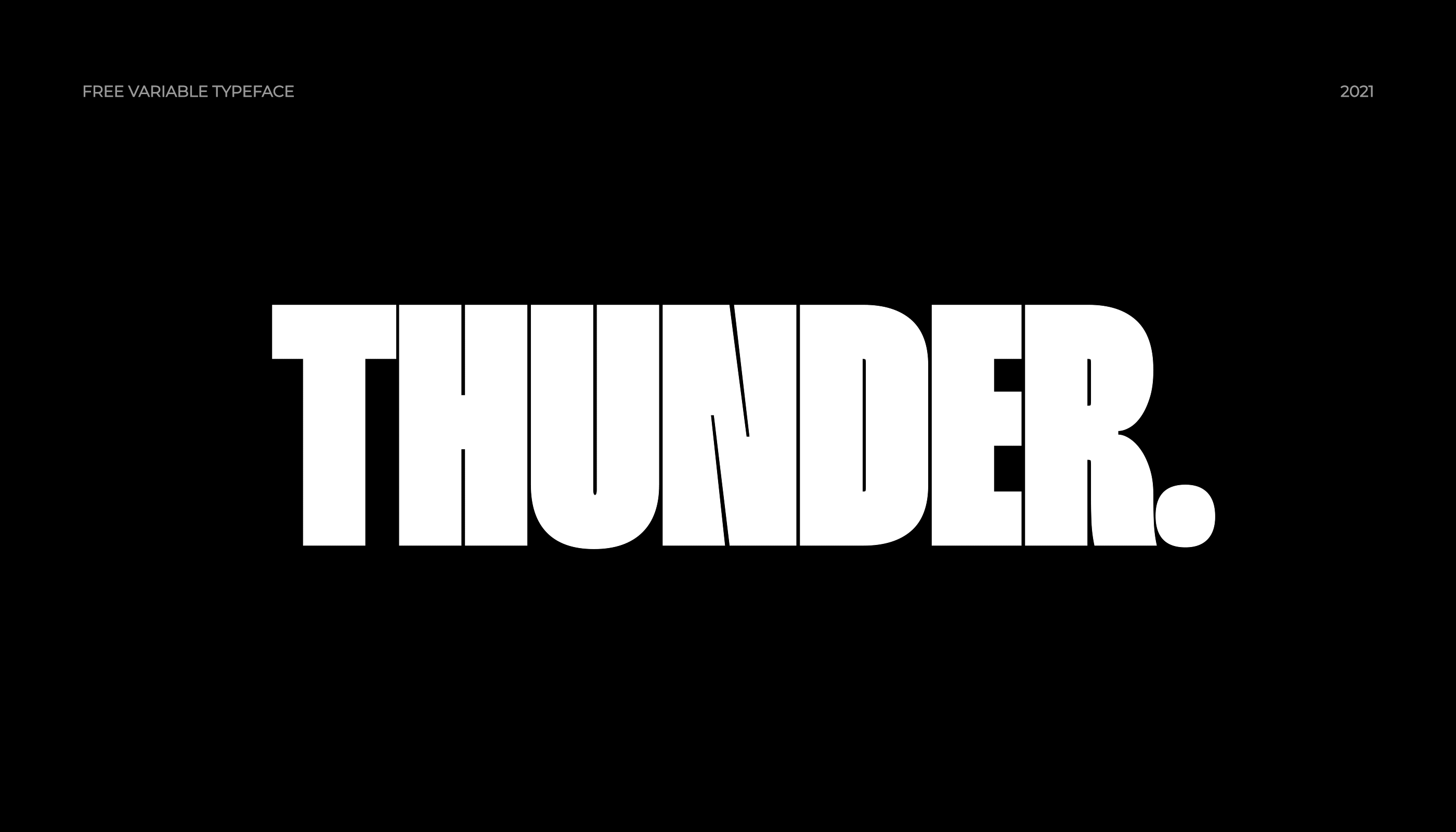
THUNDER is a condensed typeface with two contrast and 36 styles, also available as a variable typeface.
Beautiful and soft fonts in a contemporary style that can make your design projects look modern, elegant and luxurious. Made with many alternative characters to make it easier for you to do various design projects and give you fun while typing.
Eskool is a display typeface which stems from the 90's experience of going to school. The typeface is perfect for headings & sub-headings we totally avoid reading.
Neue Metana is a modern minimalist design typeface with geometric type and more feature alternative character. there include some ligature. It is inspired by hype and urban design – a font suited for lifestyle with trend design. It was designed to be versatile, to blend in your design with light through bold weights add touch a lot of personality.
Shrimp was carefully crafted to form structured, strong and stylish letterforms by creator Anton Darri Pálmarsson. Shrimp looks perfect for posters, eye-catching headlines, loud messages and other creative projects. Be charming, be a shrimp!
Ramona is a free textured sans serif font created by Cristian Tournier. Inspired in argentine famous Folk songwriter Mercedes Sosa, offers in its character map uppercase and lowercase glyphs, diacritical marks and a variety of alternative characters. Its remarkable irregular outlines present features that simulate handcrafting making it perfect for warm and friendly communications.
Triakis is an exciting geometric typeface, inspired by the futuristic forms of 2000's retro video games. It has a bold voice, keeping the simplicity and strength from futurist geometric typefaces with a fresh and stylish rework. It has been designed as a variable font with 6 different weights in order to give lots of options and access to unique type looks. Its distinctive character and numerous variables make it a versatile and stylish workhorse, perfect for interfaces, packaging, signage branding, etc.
This sans-serif font made by the Indieground Team is perfect for titles, logos, editorial design, branded packaging and web design. It fits every graphic design or typography-related project. The slightly rounded corners of the letters give an elegant line to your text and quotes. A font with a minimal atmosphere that will give a cool style and weight to all your artistic compositions.
A vintage modern typeface built for elegance and adventure in mind. Tropikal typeface came from the curiosity of what old Philippine type would look like in today’s modern landscape. Tropikal is a modern rendition of an old style serif typeface inspired from the nineteenth-century Philippine bank notes, newspapers and packaging designs.
Leiko is a versatile serif typeface with moderate contrast, soft curves and sharp serifs.Leiko is well-suited to classy branding and editorial designs.
SuperDuper is a grotesque sans-serif typeface designed by Asaf Hagag mainly for super-sized headlines and short paragraphs. It looks great in posters, social media, magazine titles and when you need maximum use of space. The best thing is that it’s free for personal and commercial use.
Stanley is an elegant stencil display typeface from Jérémie Gauthier that combines rounded and rectangular forms. This font is multilingual and is perfect for branding, posters, letterhead, packaging designs, and much more.
Saint Regus was designed by Wahyu Ichsan Fauzi and published by Sonar Hubermann. Saint Regus contains 21 styles and family package options.
Introducing Archia Font Family! Archia designed by atipo ®. A designer from Gijón / Xixón, Spain. Archia is a sans serif typeface based on geometric shapes and “tech” approach.